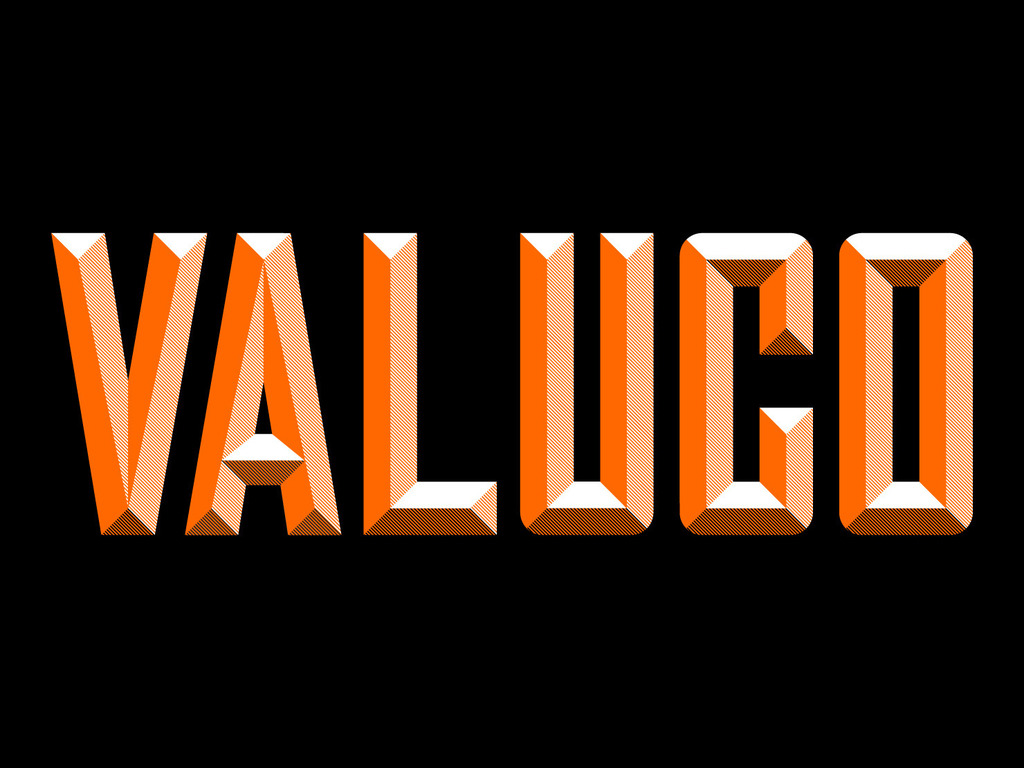
Over the years since we released these signs, we have received a lot of inquiries about the typeface we used. The iconic typography— although initially inspired by gaspipe-style lettering on an open sign— was all hand-built from the ground up in order to construct the letterforms we needed. Unable to simply suggest a font, we had to turn interested parties away and simply tell them we made these letterforms ourselves, so they probably could too. BUT NO MORE! With this Kickstarter project we hope to fulfill the needs of designers and type nerds worldwide and finally convert these letterforms to a set of three overlapping fonts that anyone can have and own!
WHAT'S SO SPECIAL ABOUT THIS FONT?
2010/2011 saw an influx in beveled typography, there's so many well-made bevel fonts out there. So why does the world need another one? Well, VALUCO is special in that the face itself will include diagonal hatched shading in the face. So a user is able to successfully produce a fairly dynamic shadowed bevel with only two colors, something that it seems few other bevels offer. This economy of color is the "value" in the "VALUCO" name. Additionally, the font is a nice, hearty, gaspipe, which is currently our favorite typographic genre. You gotta love those tall, blocky S's.
Well, when we first produced our signs, all our tints were built with simple halftone textures. It was the easiest way to produce it at the time. We thought we could continue this trend as we built the actual font, but as we begin to flesh out the full character set we have quickly realized that a vector font made up partially of halftone dots produces way, WAY too many vector points to be usable as a manageable digital font. So all tints are now being converted to diagonal hatching to cut down on bezier points. It's working, but getting the hatching prefect is s - l - o - w going . The face will only be uppercase, but we are producing punctuation, numbers, alternate characters, and currency symbols. On top of this, we still need to convert our working postscript files to multiple typefaces with accurate kerning and letterspacing, that will interface with each other to successfully produce the bevel effect. This will not be the fun part, but your support will make it much, much easier.
- A, R, W, Y, S, K & M alternate letterforms